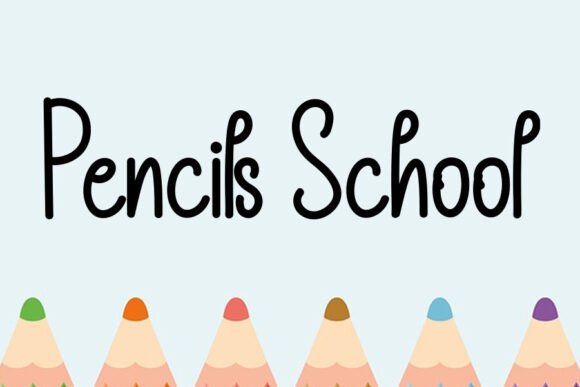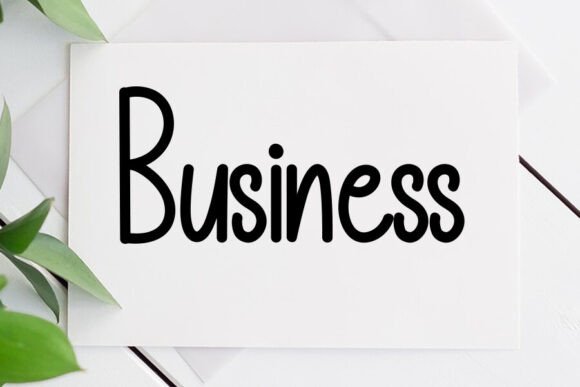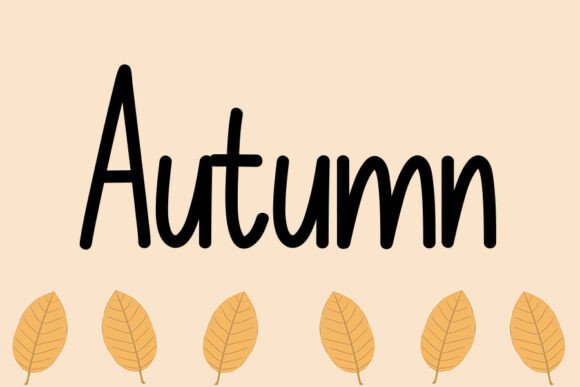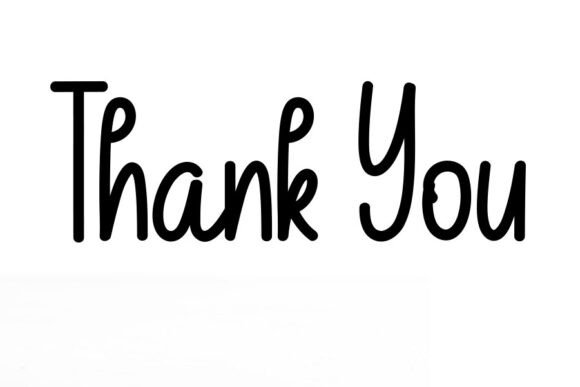
The Perfect Font for Your Next Creative Project
Have you ever stared at a blank canvas, searching for the perfect font to bring your design to life? We’ve all been there. The cursor blinks, and your mind goes blank. But what if I told you that there’s a font that can make your creative process a little easier, and a lot more fun? Introducing the Funny Font, a sweet and cursive handwritten font that’s perfect for adding a touch of whimsy to your designs.
This lovely font is designed to add a joyful and romantic touch to any project, from branding and logos to wedding invitations and greeting cards. Its casual elegance makes it a valuable asset for designers looking to create unique and eye-catching designs. Whether you’re working on a marketing campaign or a fashion lookbook, the Funny Font is sure to bring a smile to your face and a touch of personality to your work.
Key Features of Funny Font
- Unique Characteristics: The font features a playful, cursive design with exaggerated letterforms and flourishes, adding a touch of whimsy to any text.
Designer Review: Funny Font
As a designer, I was excited to dive into Funny Font and see what it had to offer. Overall, I found it to be a fun and playful addition to any project ✨. The font’s unique character set and quirky design elements make it perfect for creating eye-catching graphics and text-based designs.
One of the standout features of Funny Font is its versatility ✨. It can be used in a variety of contexts, from social media graphics to advertising campaigns. The font also comes in a range of weights and styles, making it easy to find the perfect fit for your project.
While Funny Font has many great qualities, there are a few limitations to be aware of ⚠️. The font can be a bit difficult to read at smaller sizes, and it may not be suitable for large blocks of text. Additionally, the font’s quirky design elements can be a bit overwhelming in some contexts.
- May not be suitable for large blocks of text
- Can be difficult to read at smaller sizes
- Quirky design elements may be overwhelming in some contexts
Overall, I would recommend Funny Font to designers who are looking to add some personality to their projects ✨. While it may have some limitations, its unique design elements and versatility make it a great choice for many applications.
For the most effective use of Funny Font, use it sparingly and in creative contexts, such as:
– Captions for memes or humorous images.
– Titles for social media posts or blog articles.
– Headings for marketing materials or advertisements.